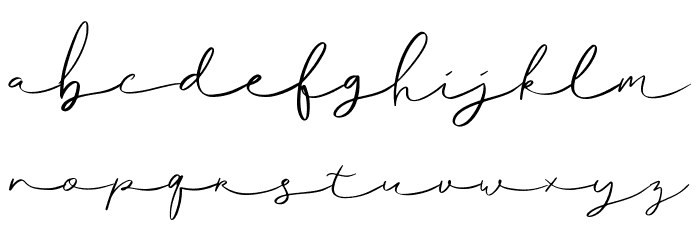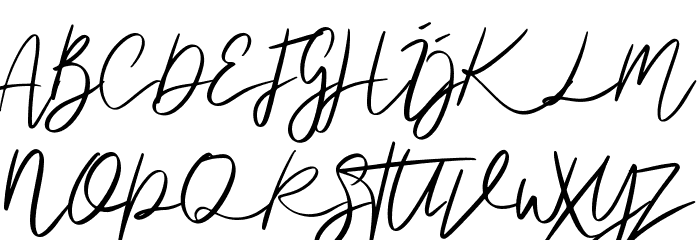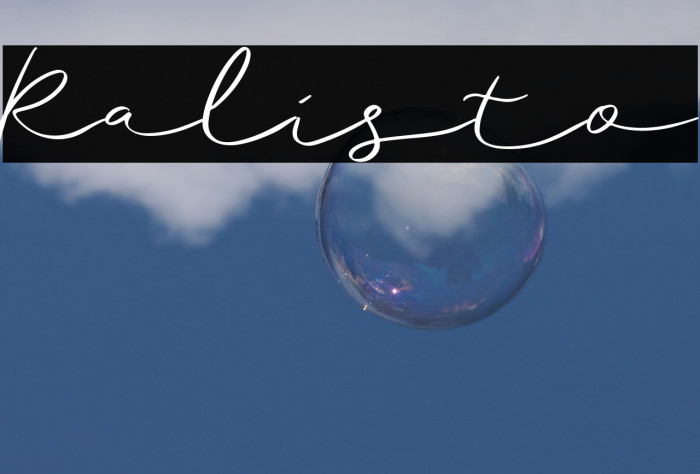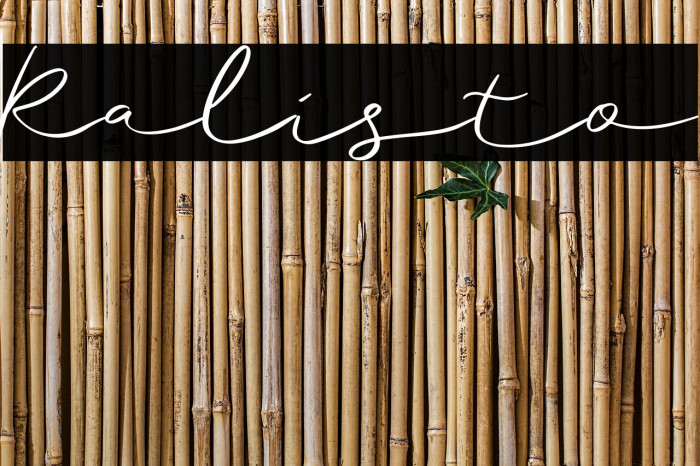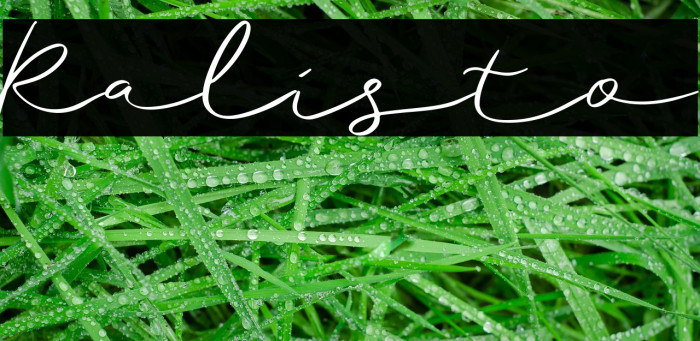
Ralisto Font
This font exhibits a dynamic and flowing script style, characterized by its elegant, cursive letterforms. The uppercase letters are bold and expressive, with a slight slant that adds a sense of movement and fluidity. The lowercase letters are more delicate, maintaining a consistent stroke width that enhances readability while preserving the handwritten aesthetic. The font features a mix of thick and thin strokes, creating a balanced contrast that adds depth and interest. The overall appearance is both sophisticated and approachable, making it suitable for a variety of design applications.
A dynamic and elegant script font with flowing, cursive letterforms.
- Proposed Projects: Ideal for wedding invitations, greeting cards, branding projects, and elegant packaging designs.
- Overall Style: Elegant, Handwritten
- Use Case: Logos, Invitations, Decorative text